Choosing a font for your business is a decision not to be taken lightly. It might seem pretty menial in the big scheme of things, but you’d be surprised how important it really is, to the point where, in some cases, it can make or break a company.
Whether it’s for your logo, marketing materials or website, your font choice should reflect how you want to be perceived as a brand. While we can’t tell you which fonts would best suit both your brand and your taste, we can give you a few examples of the practices to stay away from if you want to get the most from your lettering…
1. Blink and You Miss It
No one likes a font that you can’t read. It might be fancy and it might look slick against your website design, but if you have to squint to read it, there’s no use it being there. This is especially important when it comes to your marketing materials. Potential customers aren’t going to spend time trying to decipher the text on your flyers, poster design, business card or roller banner, so make sure you promote your service using a clear, easy-to-read font.
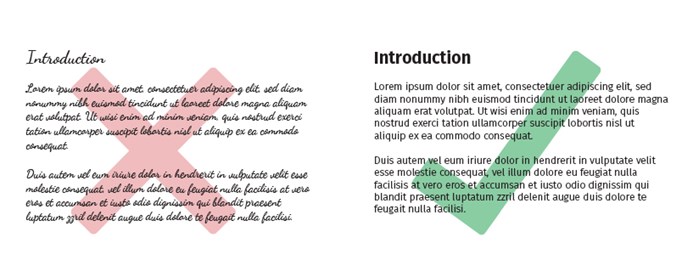
2. Unfit for the Job
One of the biggest mistakes you can make when choosing a font is forgetting to consider its purpose. The general rule of thumb with any sort of design is to make your header a different font to your body text so that readers can easily distinguish between the two. For the body text, opt for something simple that people can skim read. Using a scrawling, faded or squashed font is likely to put readers off. For the header, use something that’s bold, striking or perhaps even decorative, just as long as you’re careful not to overuse it; you don’t want your design to become cluttered and unclear.
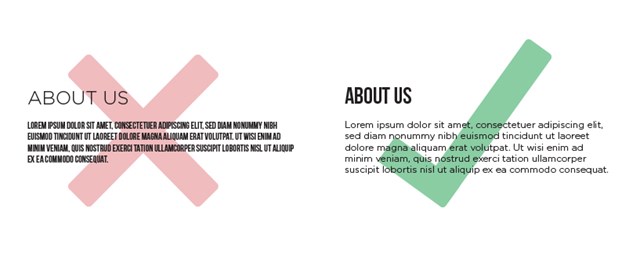
3. Child’s Play
While they might have been fun to use at school, characterised, cartoon-like fonts are big no-no if you want your brand to be taken seriously. Steer clear of fonts such as Jokerman, Papyrus and Curlz MT, they look cheap and amateurish and will make your company look that way too.
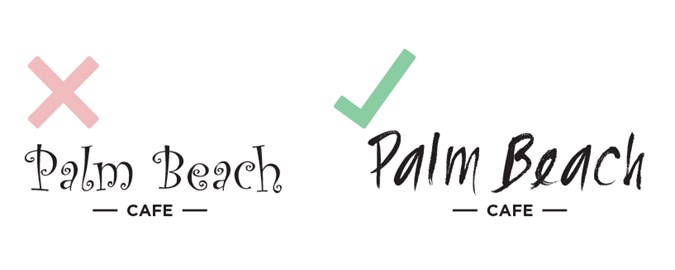
4. What a Pair of Fonts!
An unwritten rule when branding your company is to pair up two different fonts and stick to them. For example, all headers on your website will be one font, while the product copy, blog text, etc. will be another. Try not to choose fonts that don’t complement each other, the best results are often achieved by pairing a serif font (for headers) with a sans serif font (for body text). You want your brand to come across as clear and consistent, so make sure your chosen fonts comply with this.
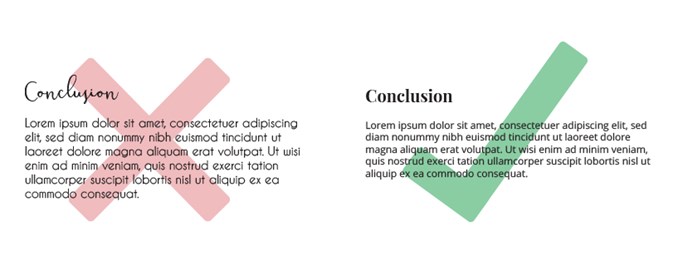
5. Now That's Inappropriate!
When it comes to the style of your font, go for one that will best suit your content and that is most appropriate for your audience. Your font should convey what your company is about. If you’re branding a boxing gym, choose something that signifies strength and substance such as Bebas or Steelfish (that one even sounds hard!). If you’re promoting a charity fun run, choose something upbeat and encouraging like Alfa Slab. Although it’s tempting to choose a font based on your own personal tastes, it’s best to opt for the one that offers the right impression to customers.
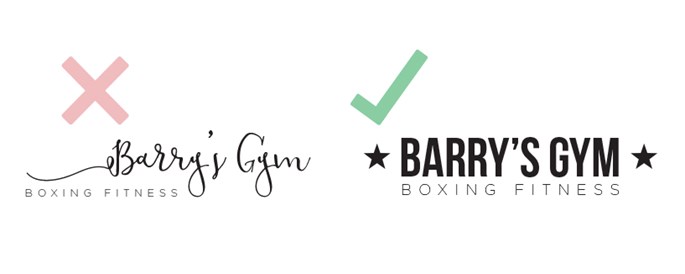
6. Fonts Behaving Badly
If you’ve spent any time looking at fonts online, you might have stumbled across a few examples of when fonts turn bad! This is when the reader misinterprets the message as something else (usually something rude or inappropriate!) due to the font being squashed together or presented in an unfortunate fashion. The results are often hilarious, but it’s not something that should be repeated by your own company! To keep your font from behaving badly, always make sure you allow space for your letters. Think about where the text is going to be seen and how it will look on a whole. The lesson here is to proof-read like mad! You could even ask someone unrelated to your company to check over your design and see if it reads as intended. The last thing you want on your hands is a font blooper, your company might not live it down!
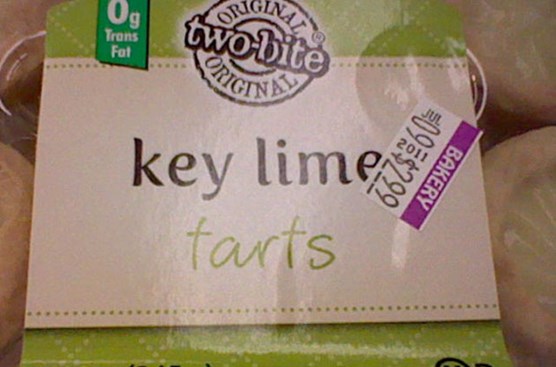
So now you know your good fonts from your bad fonts, it should make sifting through the endless pool of options a lot easier. If in doubt, just keep it simple and whatever you do, keep away from Comic Sans. It’s never, ever the answer!